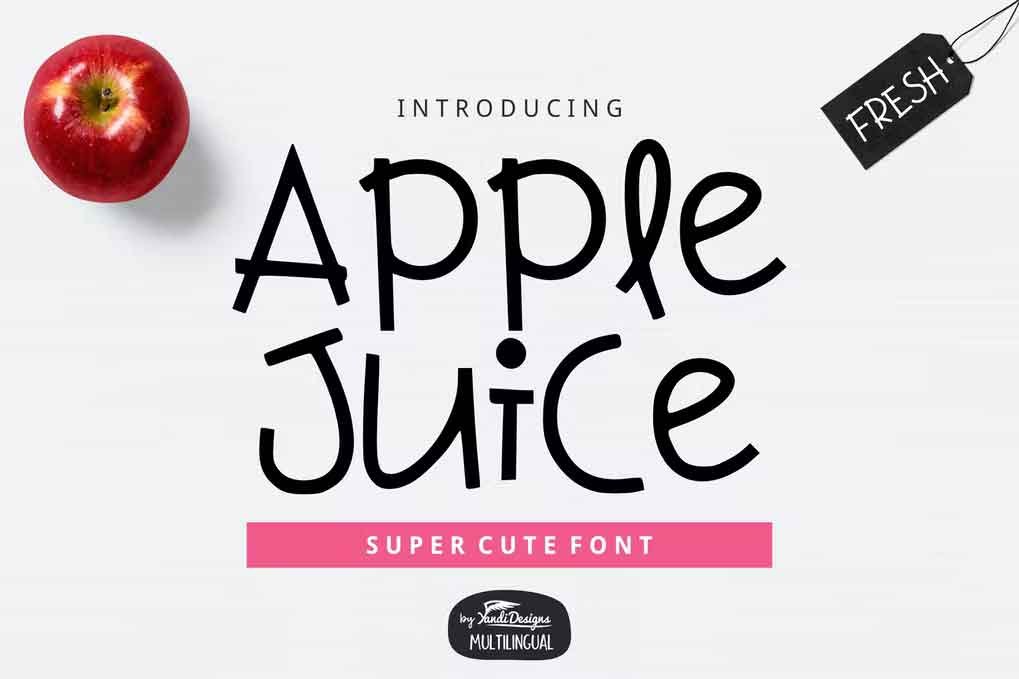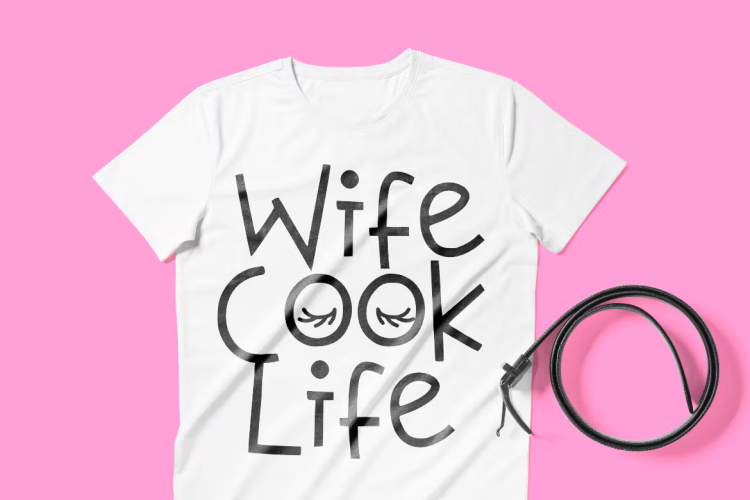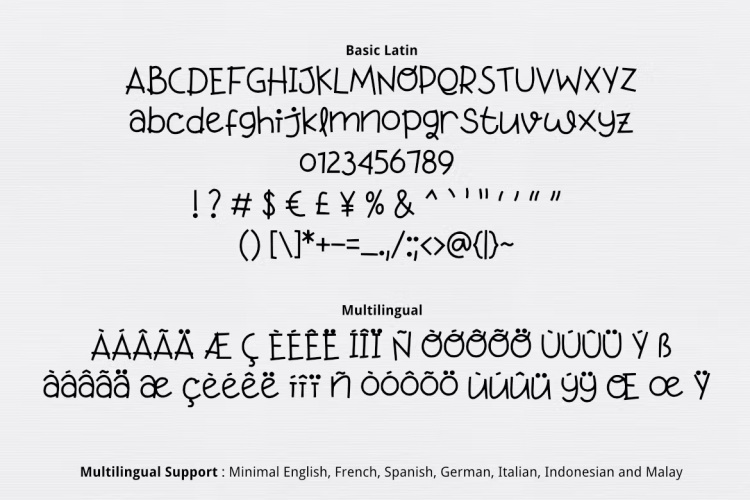
Apple Juice Font
Simple cute font , suitable for many project, signature , quotes, logo , doodle, heading , title etc.
Unicode Basic Latin + Multilingual Support : Minimal English , French, Spanish, Germany, Italian, Indonesian and Malay.
Apple Juice Font is a Serif Fonts font that brings a professional and versatile look to your projects. Apple Juice Font Simple cute font , suitable for many project, signature , quotes, logo , doodle, heading , title etc.